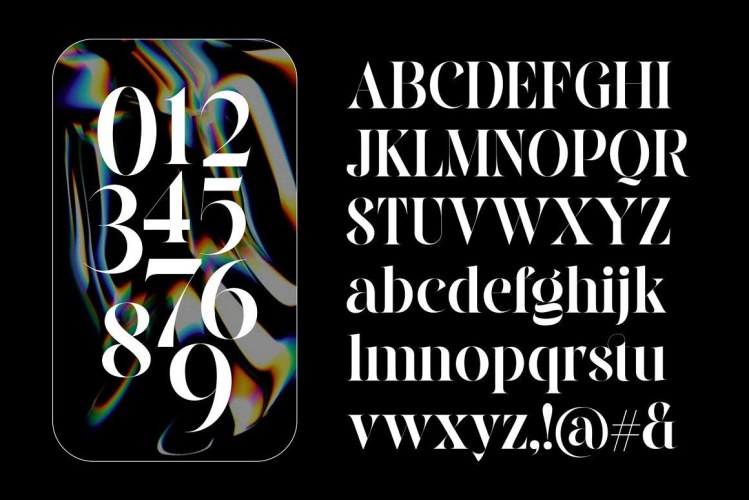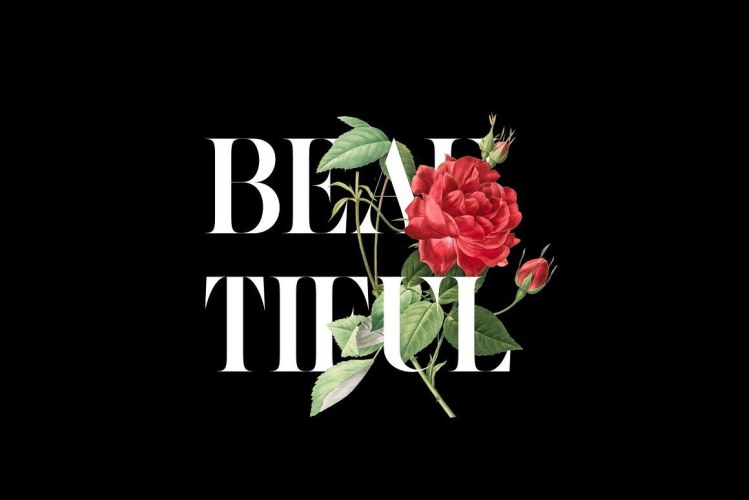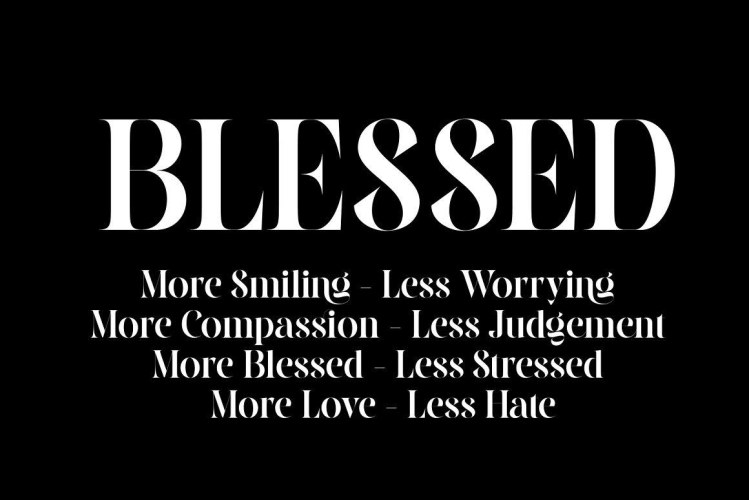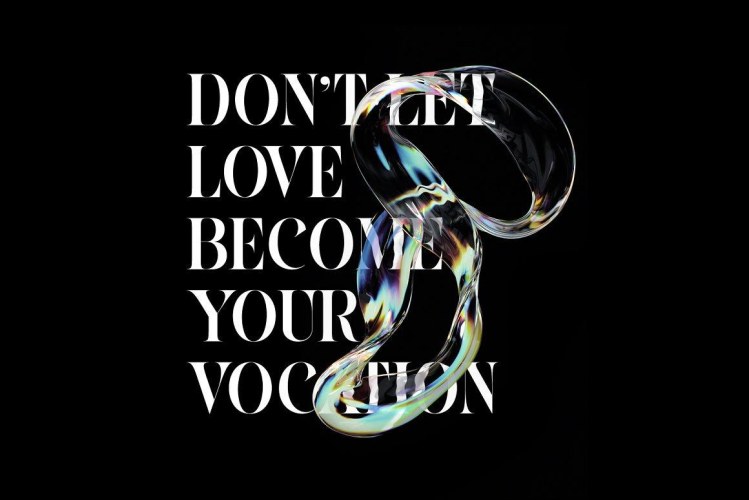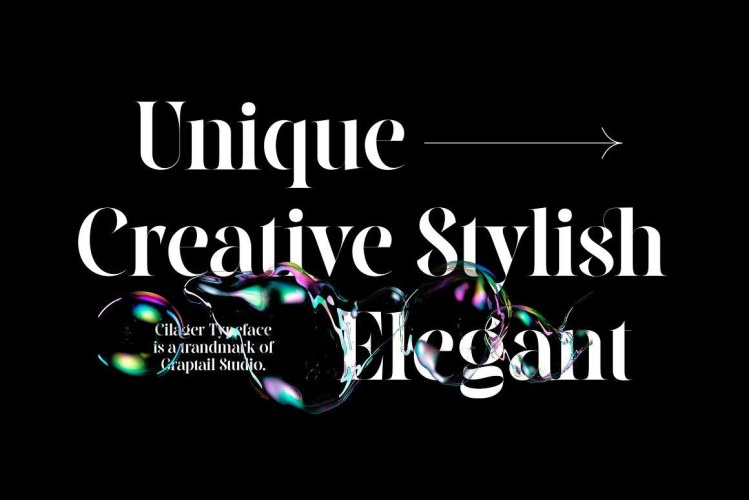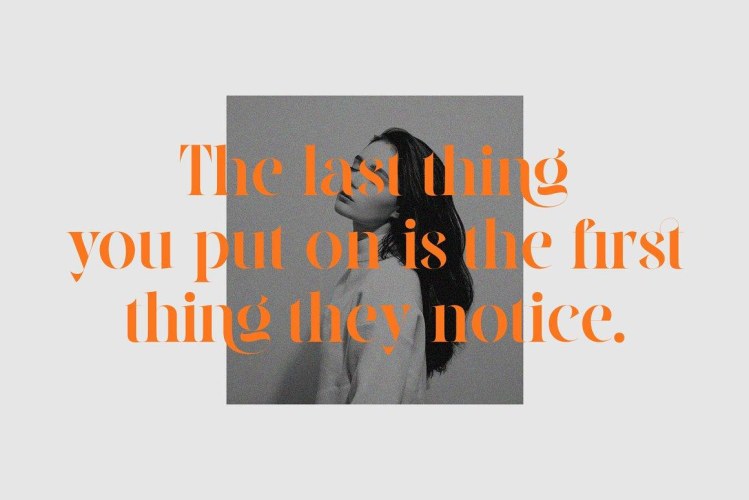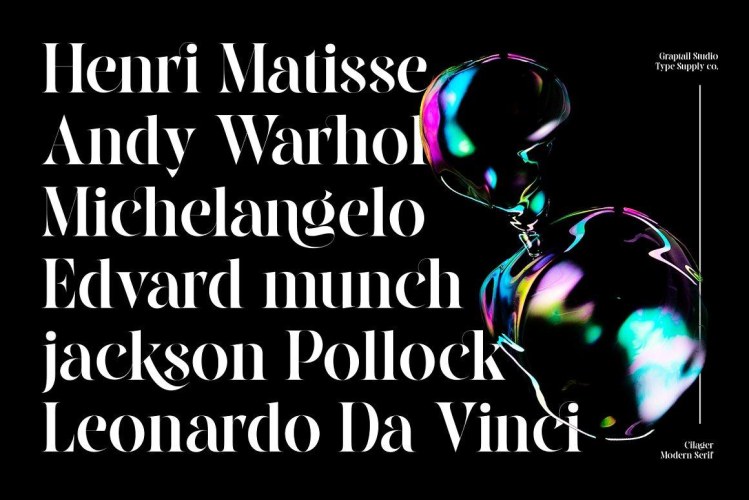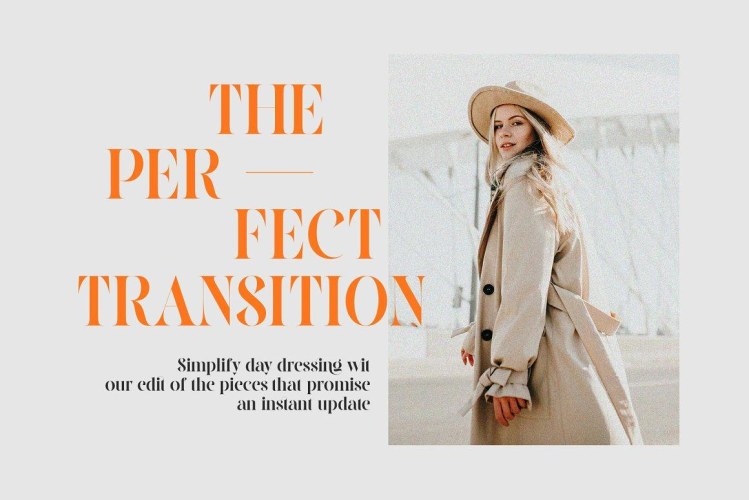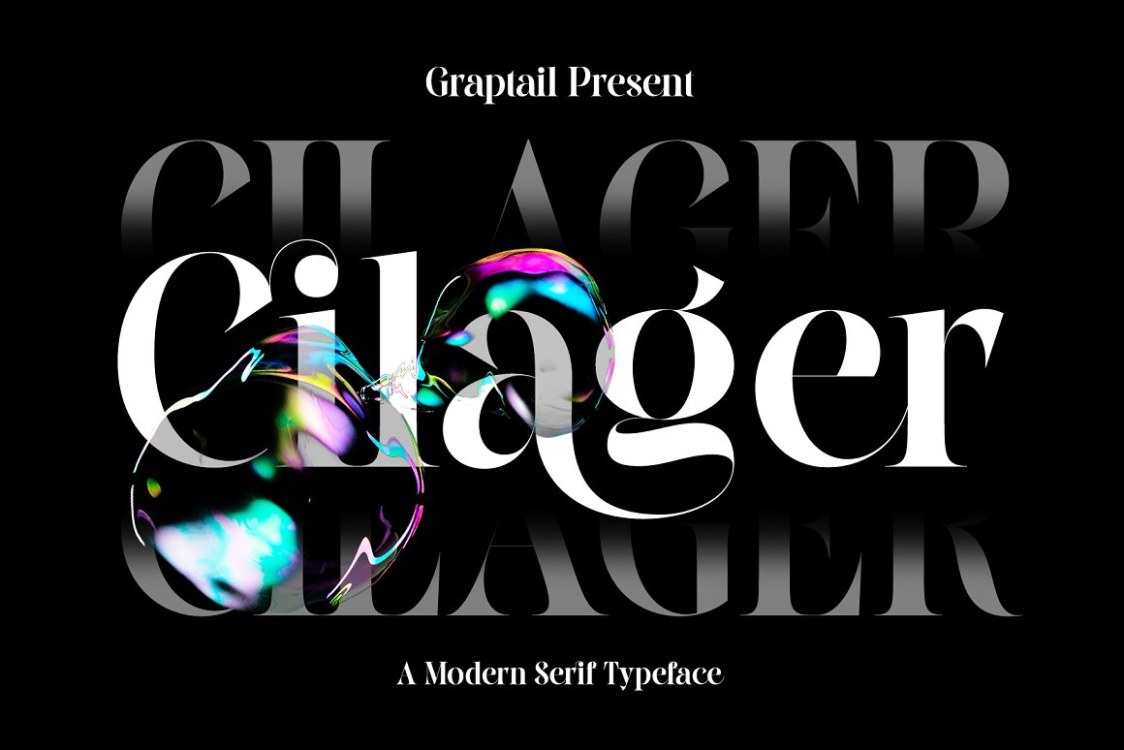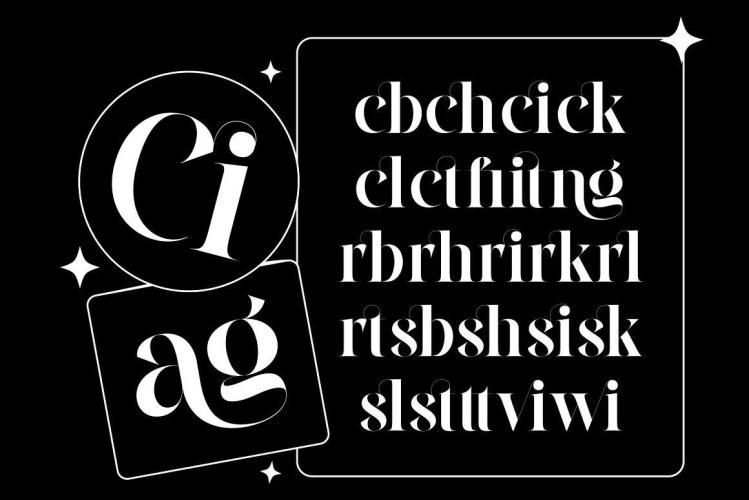
Cilager Font
Cilager is a Modern Serif Typeface that gives a romantic feel to every curve. With 26 Ligatures which are included, it is very helpful in creating the title of each of your project such as Logos, greeting cards, quotes, posters, branding, business cards, postcards, movie titles, blog headers, art quotes, typography, magazines and more.
Where Cilager Font works best
Cilager Font gives long-form text a classic, trustworthy rhythm — ideal for magazine spreads, annual reports and book interiors.
Pair Cilager Font with generous letter-spacing for wordmarks in fashion, hospitality, wine and jewellery branding.
Use Cilager Font for slide titles in Keynote, PowerPoint or Google Slides to add authority without looking dated.
What is Cilager Font good for?
Cilager Font is a Serif Fonts typeface tagged Branding, Editorial, Modern, Poster. It works well for headlines, logos, posters, social media graphics and branding projects that need a distinctive serif fonts look.